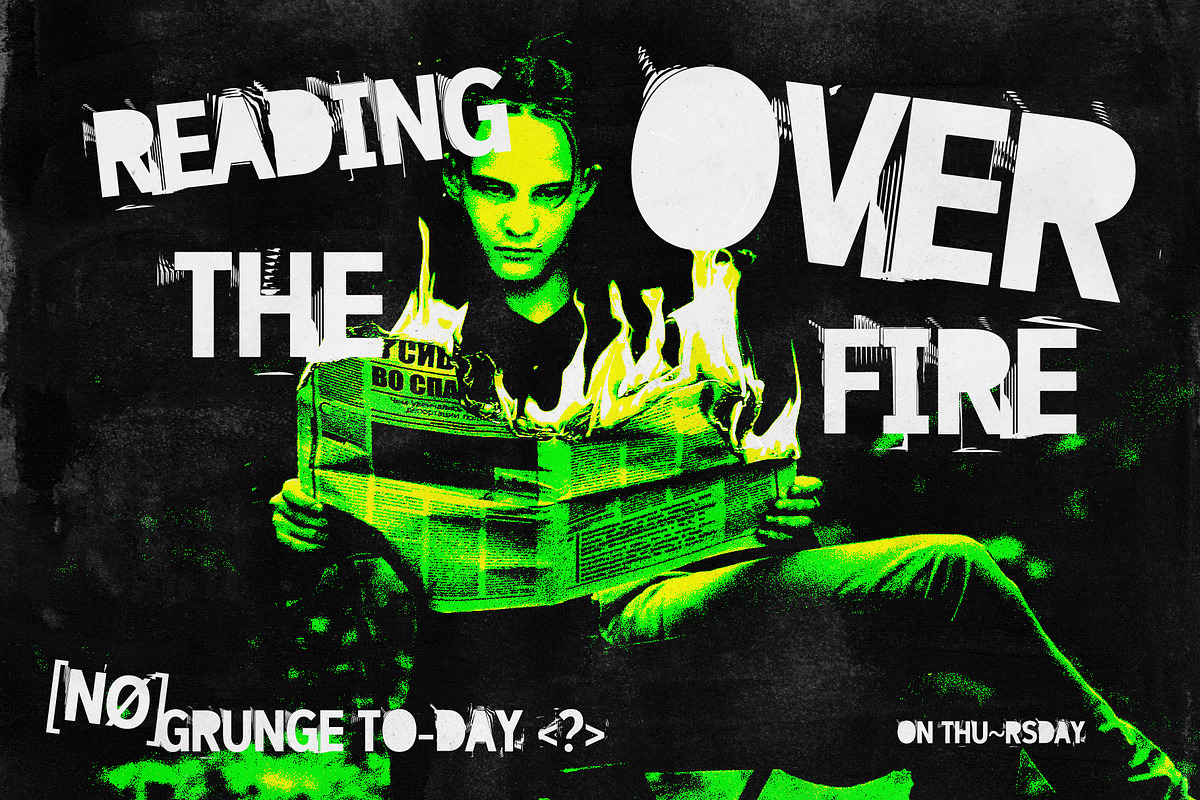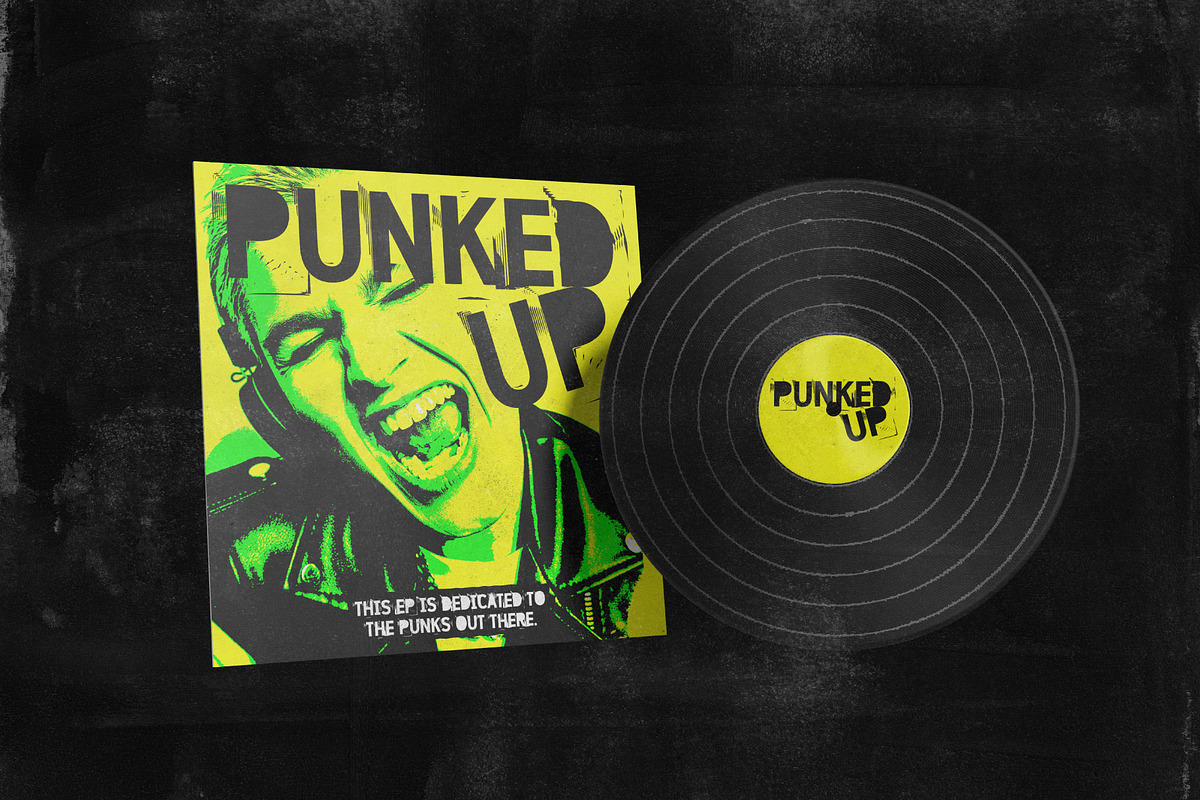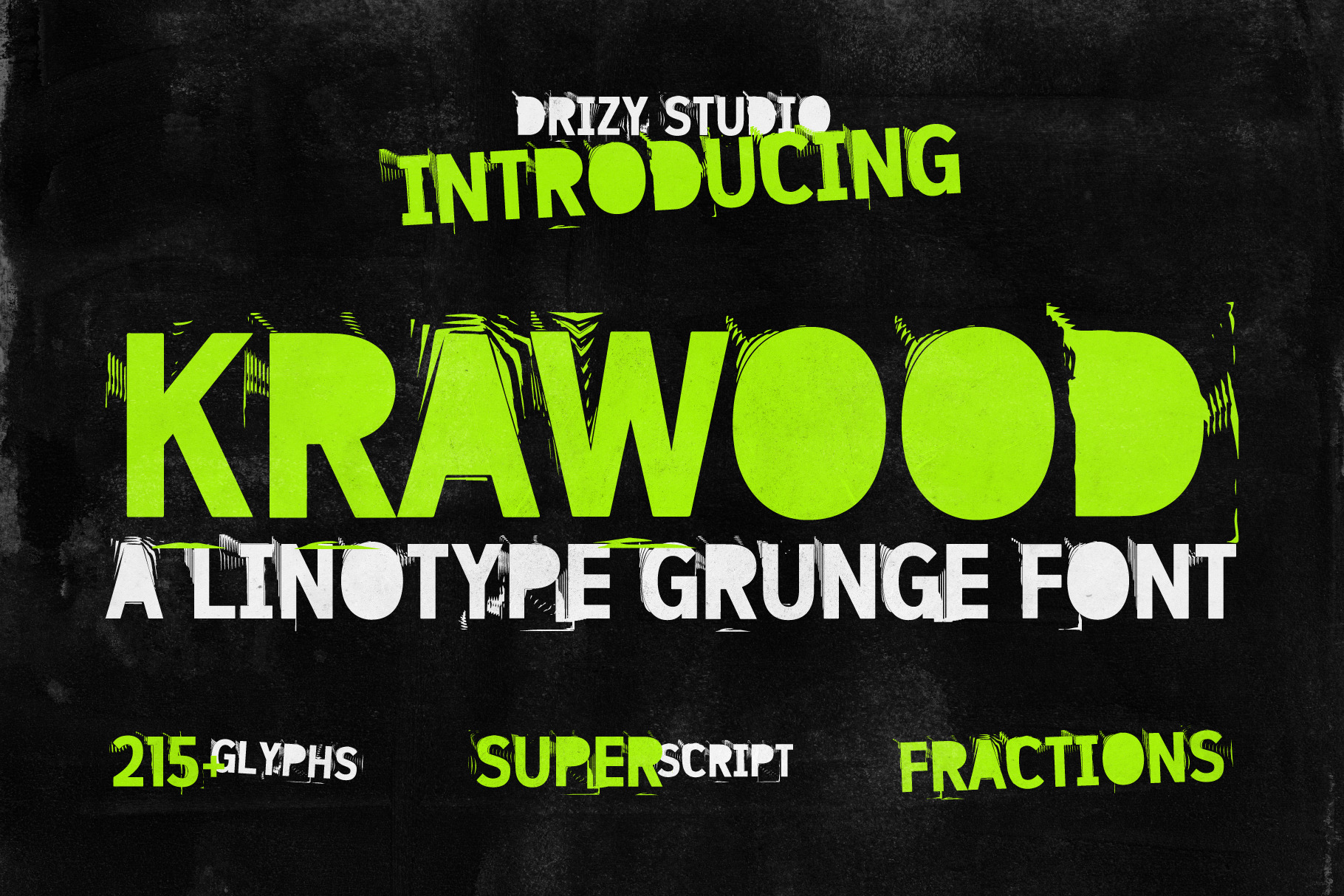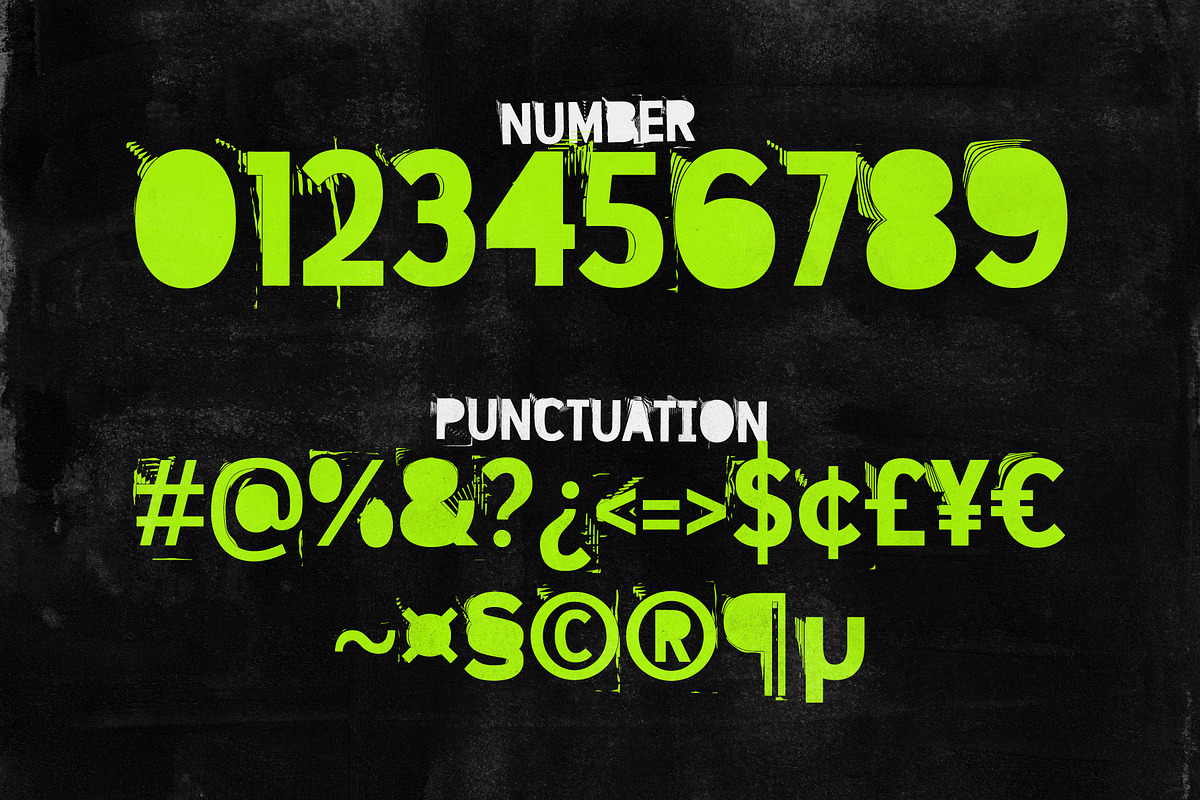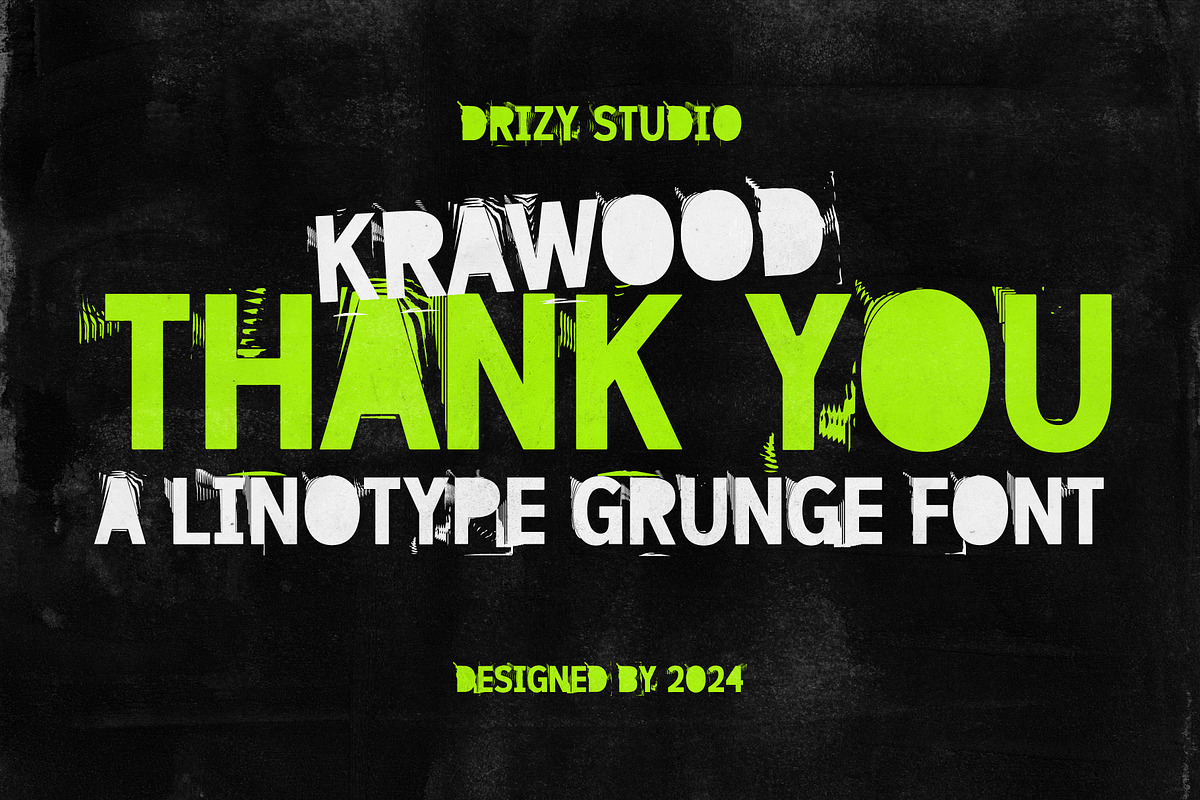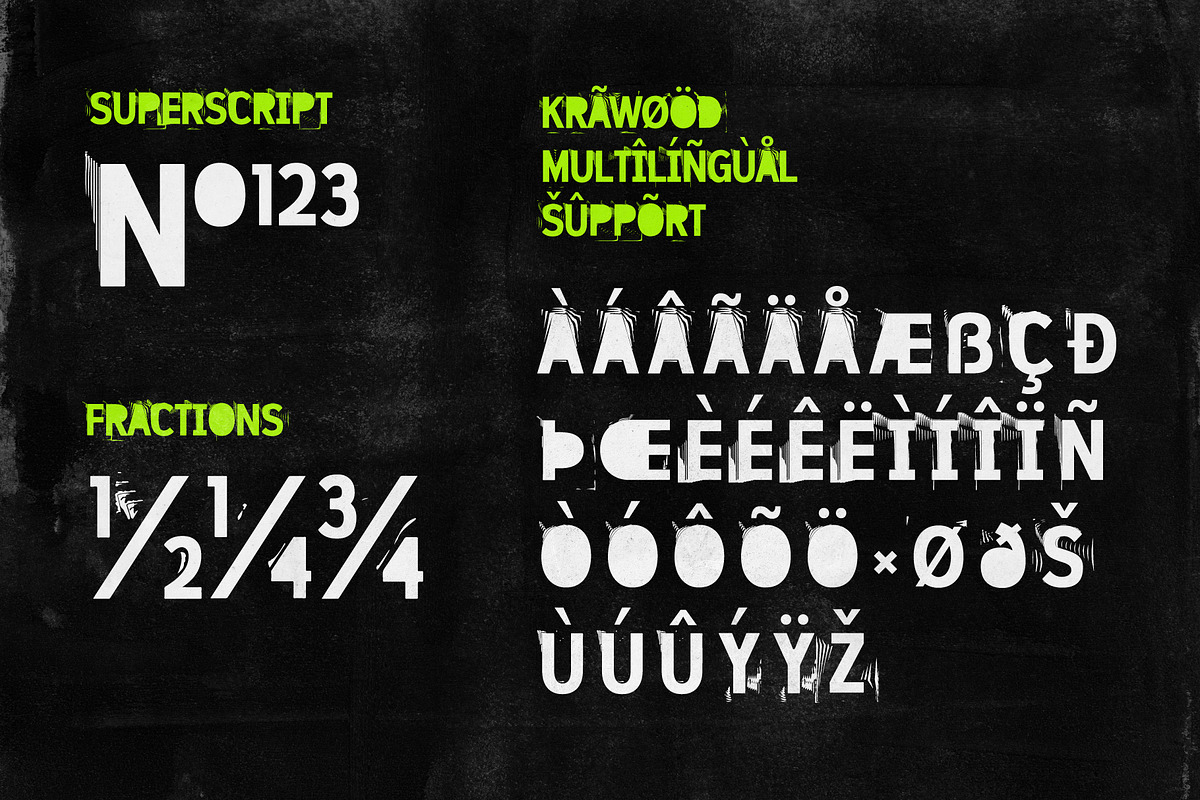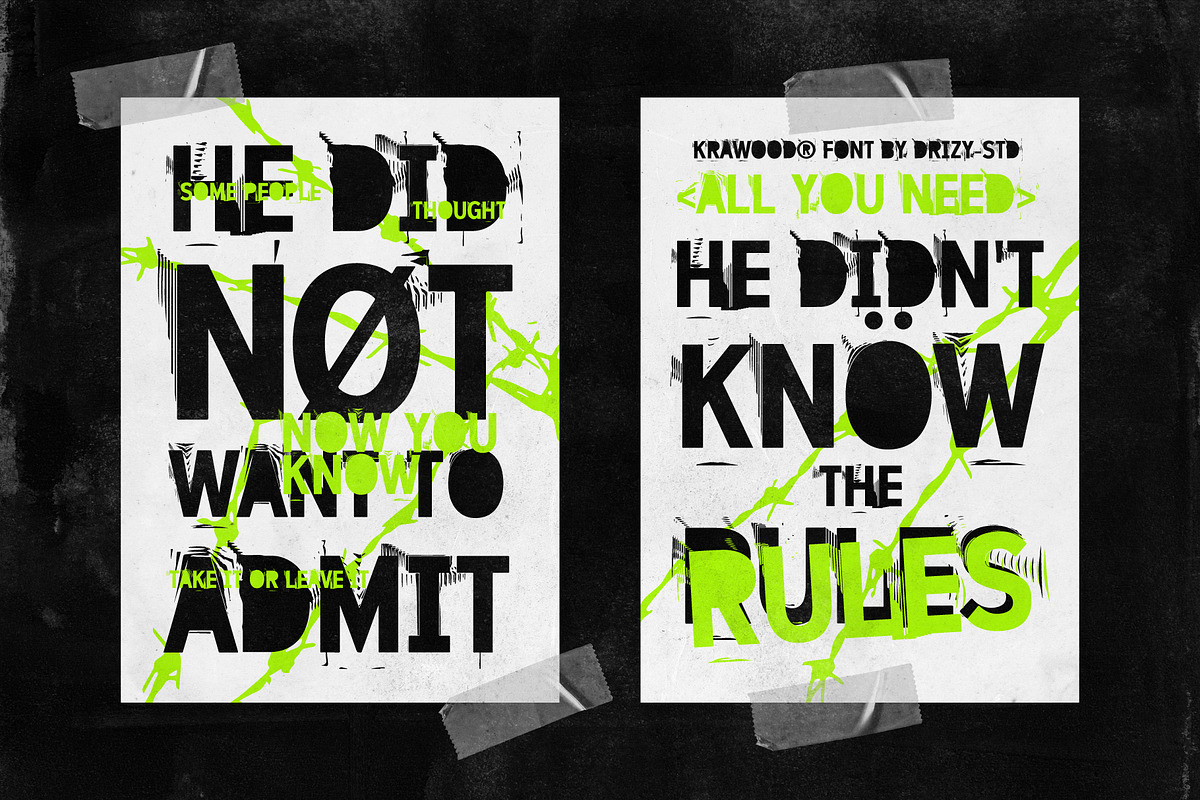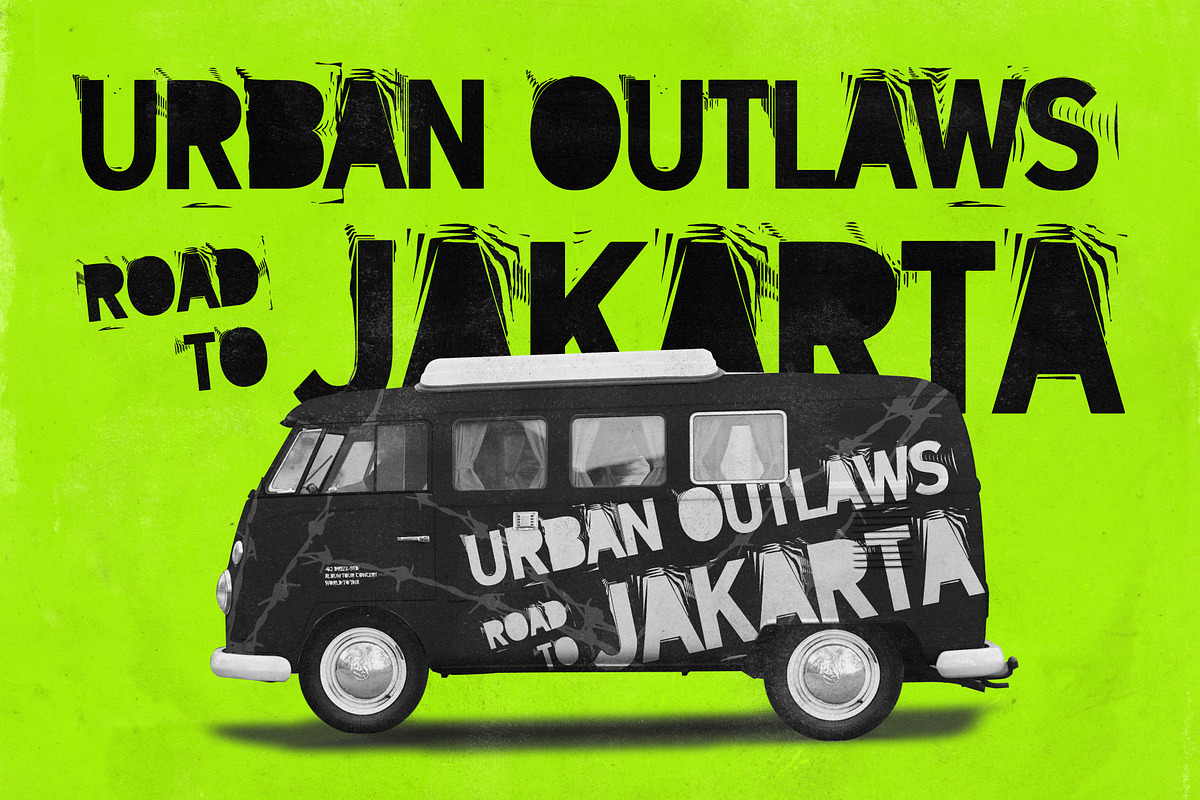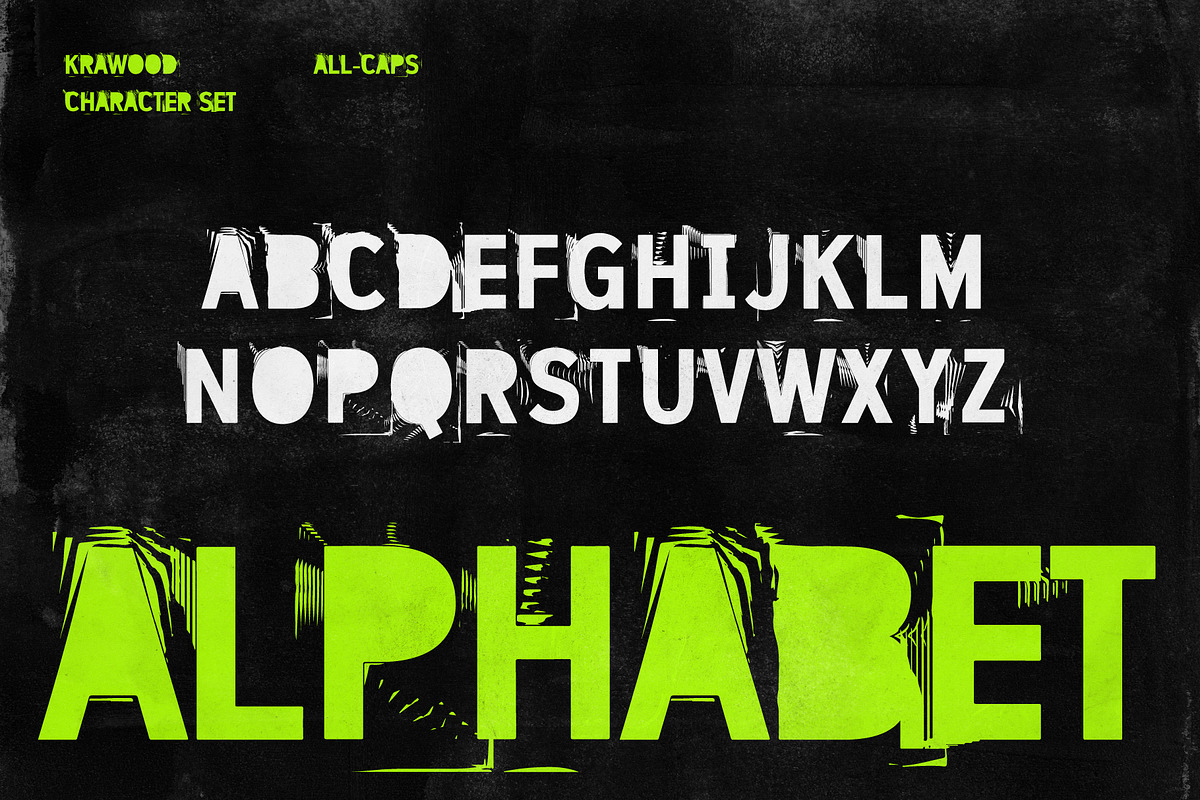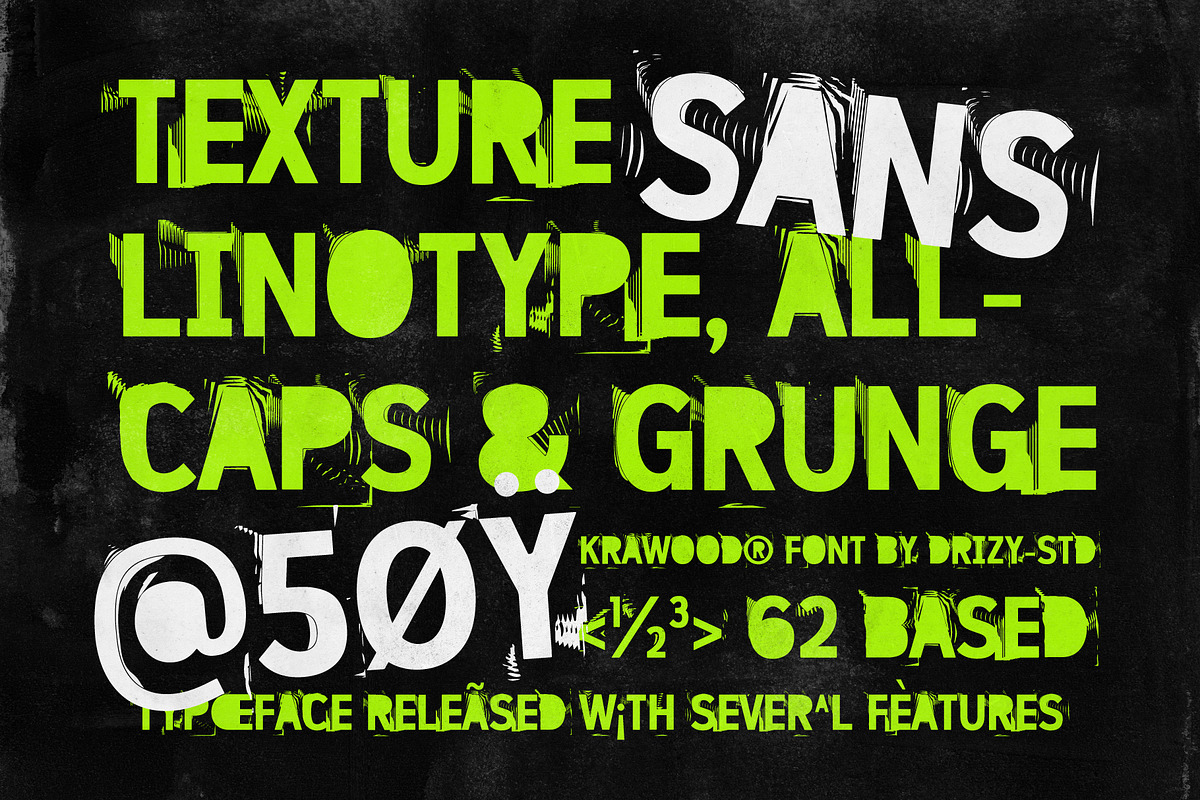
Krawood - Linotype Grunge Font
Krawood, a distinctive entry in the Linotype Grunge Pointillism Font collection, embodies the raw energy and unpredictable nature of urban street art, merging it with the meticulous nuances of pointillism. This font stretches the boundaries of traditional typography, introducing a design that is as chaotic as it is controlled, as rough as it is refined.
Krawood features: Character Set (All Caps) Punctuation & Numbers Multilingual